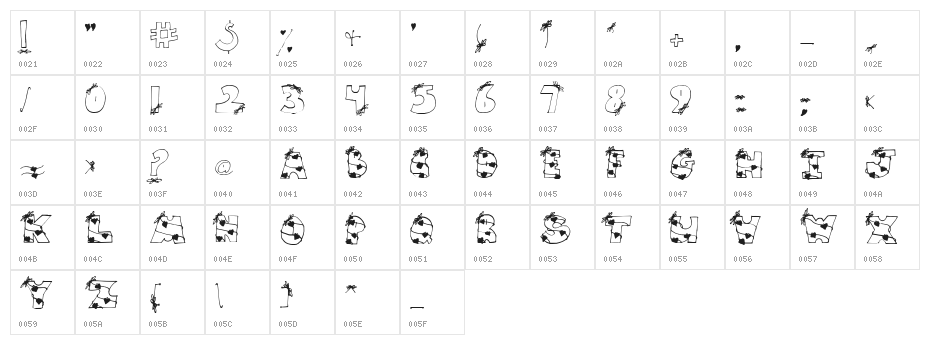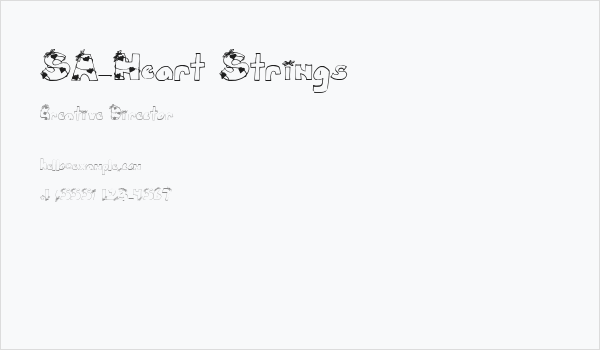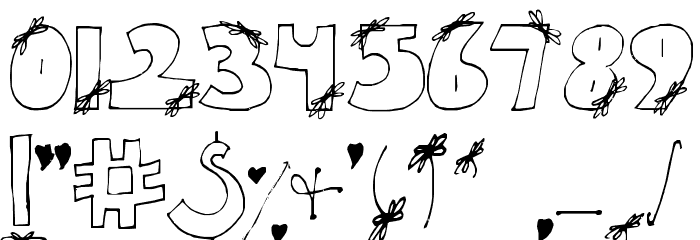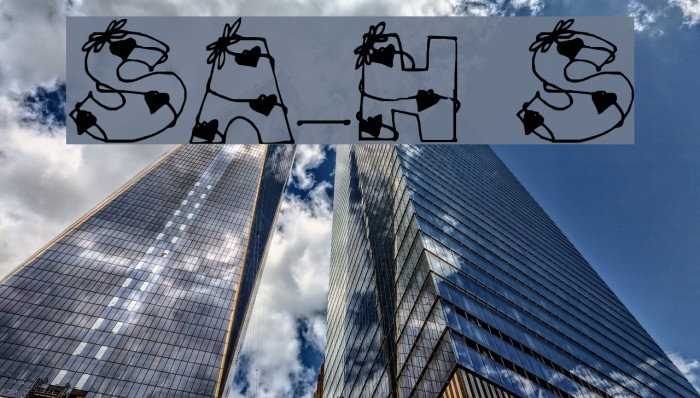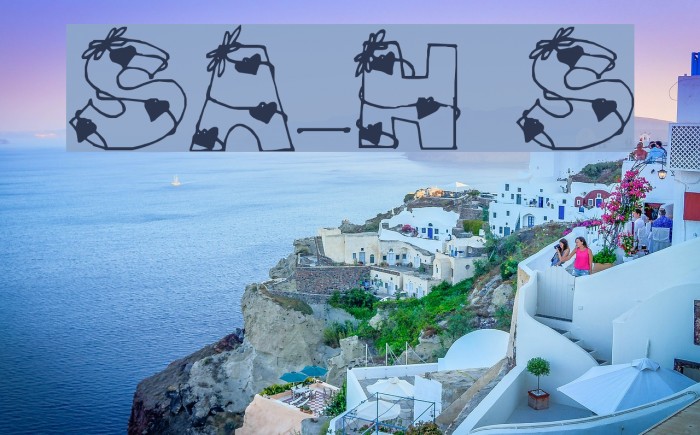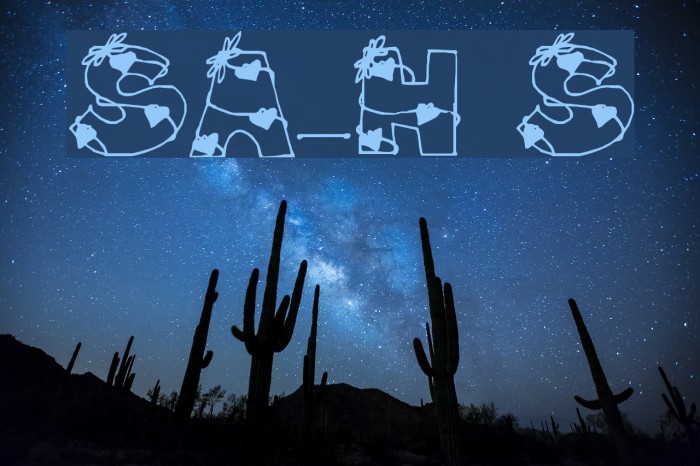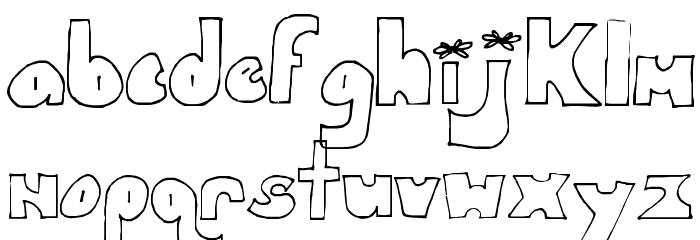
SA-Heart Strings Font
SA-Heart Strings Description
This playful and whimsical font features letters adorned with heart and bow motifs, creating a charming and decorative appearance. The uppercase and lowercase letters are bold and rounded, with a hand-drawn style that adds a personal touch. Numbers and special characters maintain the same decorative theme, making the font cohesive and visually appealing. The unique design elements make it stand out, perfect for projects that require a touch of creativity and fun.
| Use Case | Logos, Posters, Greeting Cards |
| Proposed Projects | Ideal for greeting cards, children's book covers, playful branding, and decorative posters. |